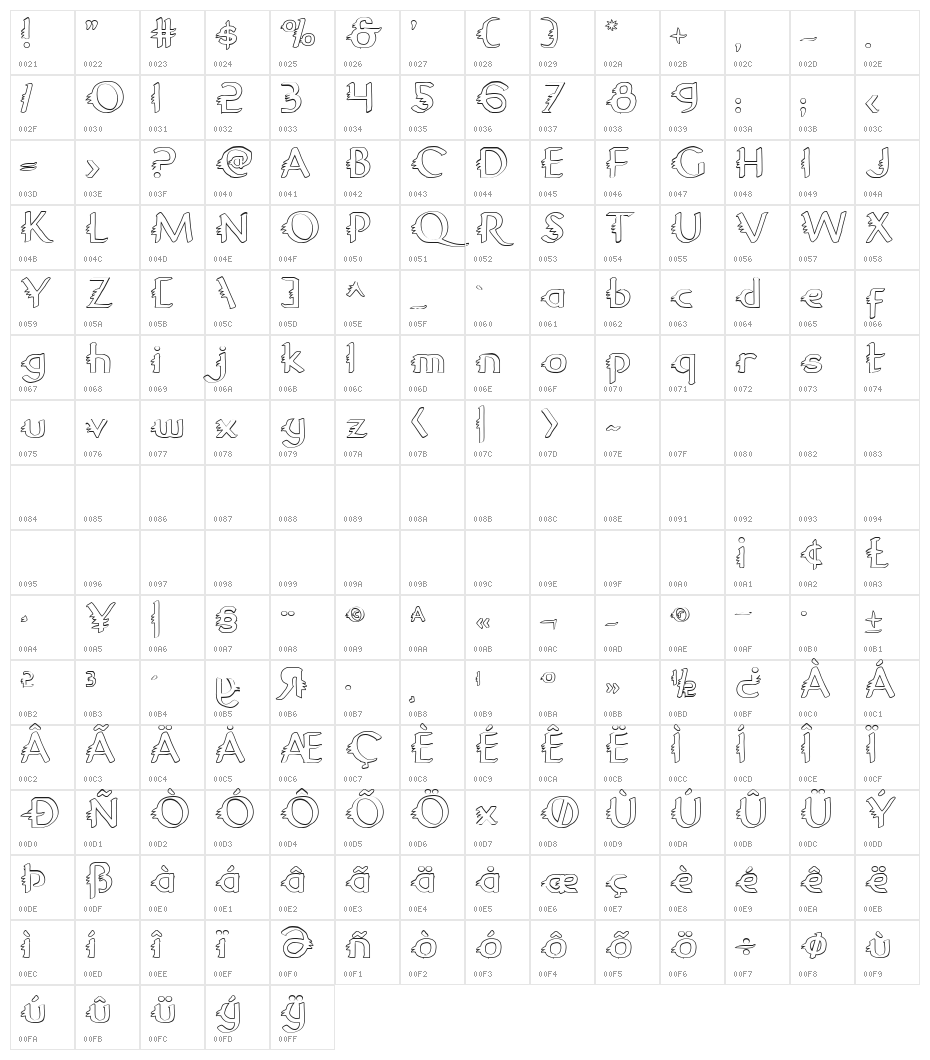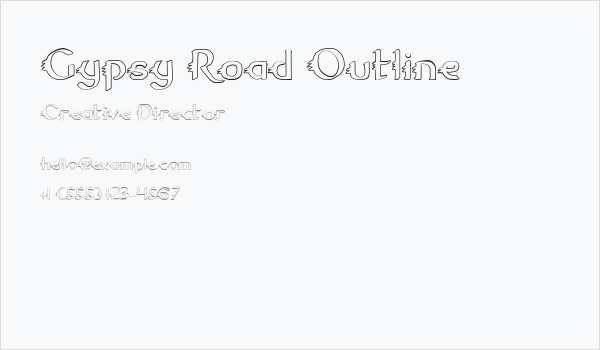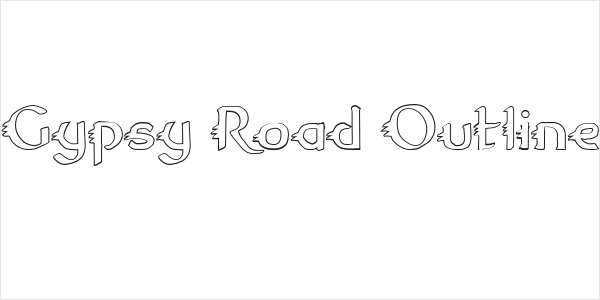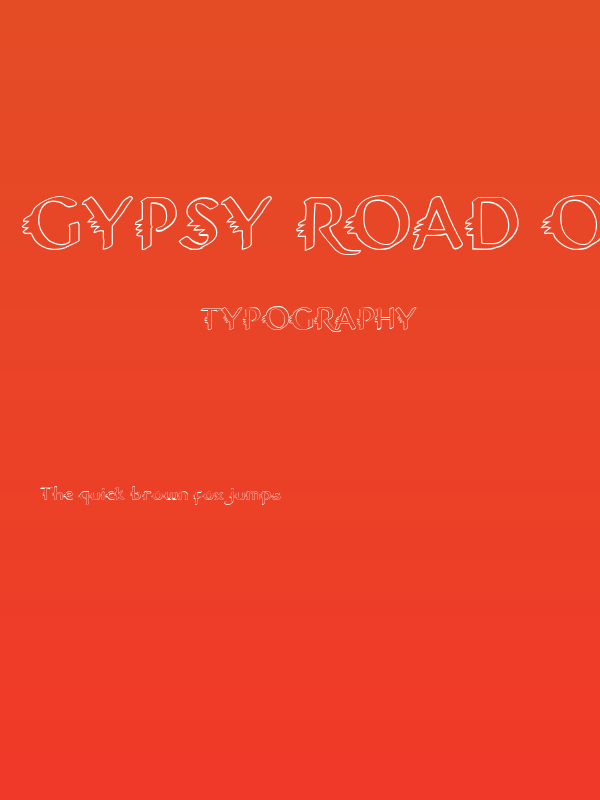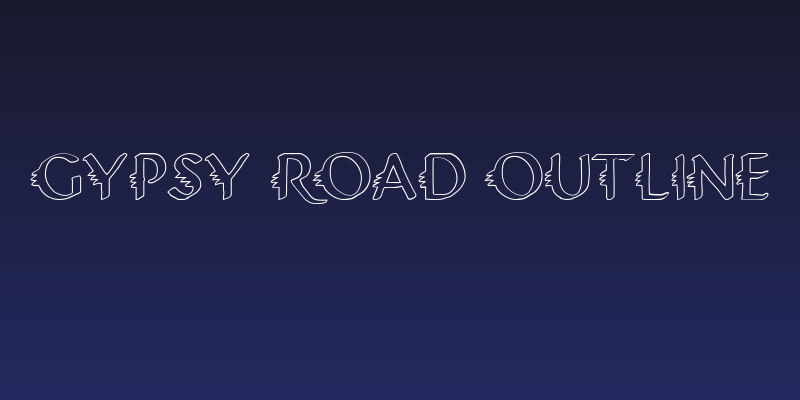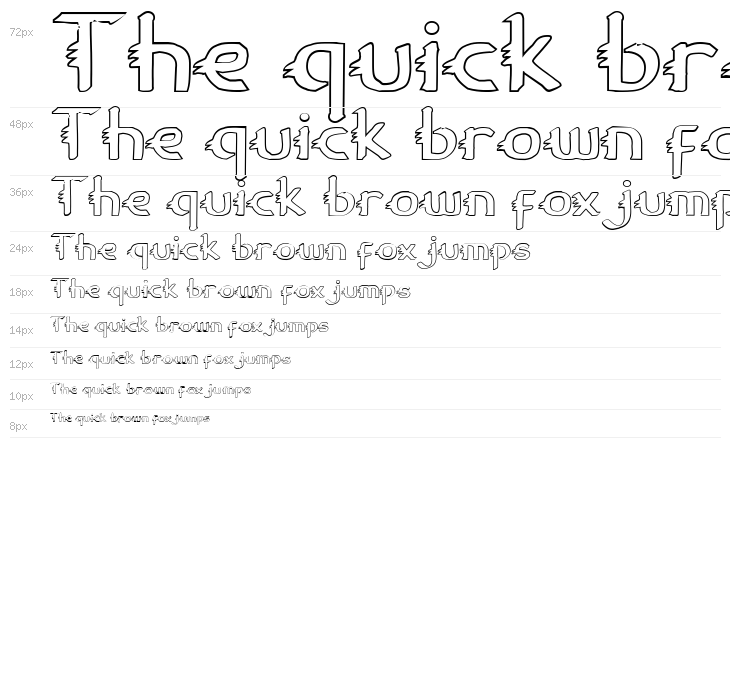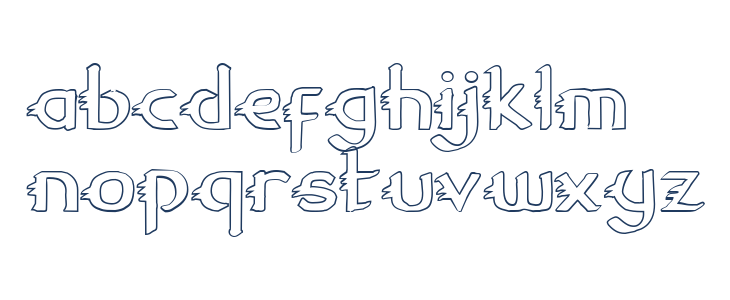
Gypsy Road Outline Font
Gypsy Road Outline Description
This font features a unique outline style with a decorative flair, characterized by jagged, lightning-like cuts through each character. The uppercase and lowercase letters maintain a consistent design, with bold outlines that create a striking visual impact. The numerals and special characters follow the same theme, ensuring a cohesive look across all elements. This font's distinct style makes it ideal for projects that require a bold and edgy aesthetic. The characters are evenly spaced, providing a balanced appearance that enhances readability despite the intricate design.
| Proposed Projects | Ideal for album covers, posters, branding for edgy or alternative products, and event promotions. |